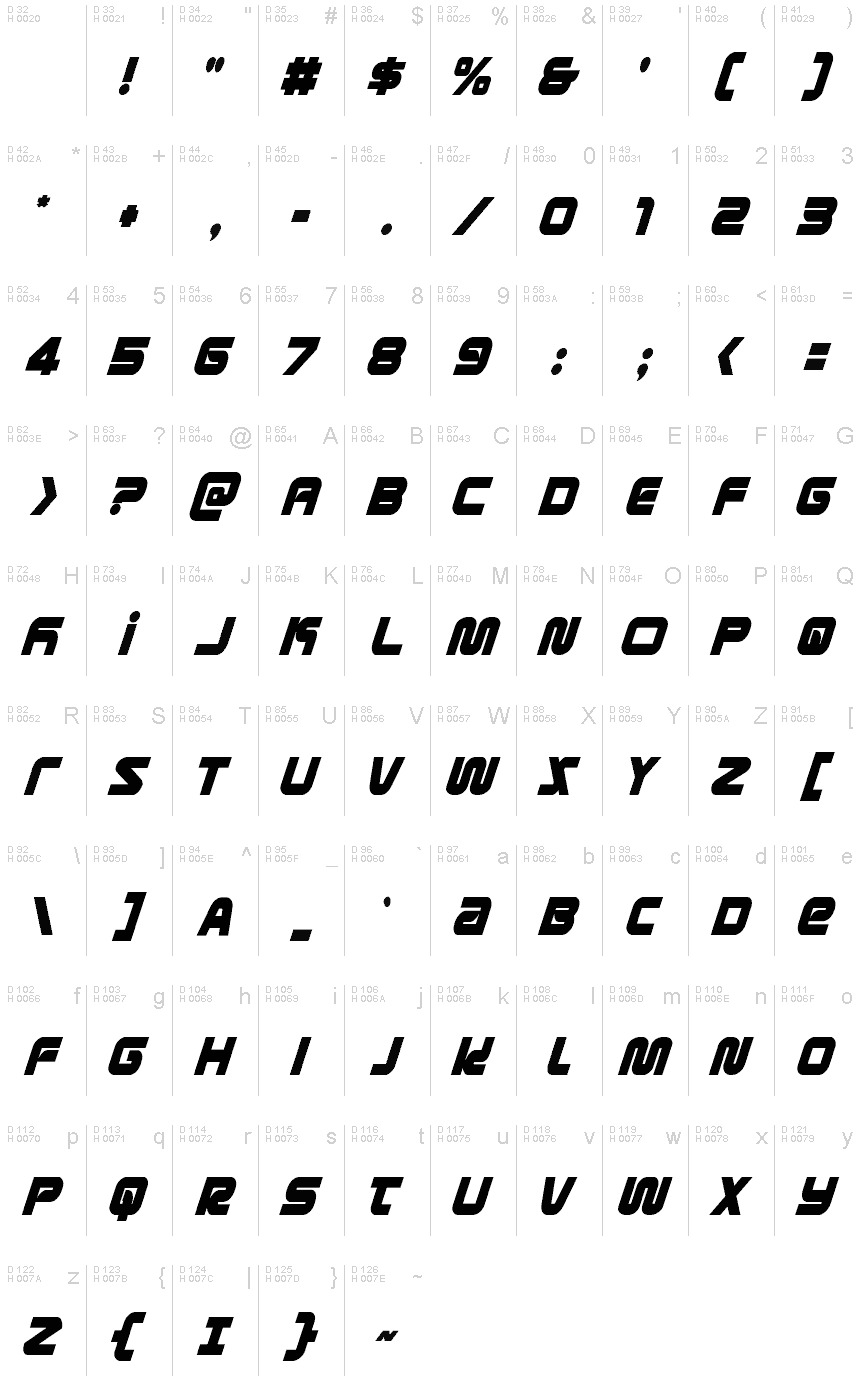
Metronauts Condensed Italic
The Metronauts Condensed Italic font, crafted by Daniel Zadorozny of Iconian Fonts, is a captivating display font that exudes a futuristic allure. This bold and dynamic typeface boasts a sleek, condensed silhouette with sharp, angular strokes, evoking a sense of technological sophistication and cutting-edge design.
The Metronauts Condensed Italic font's distinctive aesthetic is heightened by its striking italic inclination, lending a sense of momentum and dynamism to the letterforms. This font's versatility shines through its ability to seamlessly integrate into a wide range of design applications, from sci-fi-inspired branding to eye-catching digital interfaces.
Metronauts Condensed Italic's bold and futuristic nature makes it an excellent choice for headings, logos, and attention-grabbing displays. Its clean lines and compact form also allow for efficient text layout, making it a compelling option for UI/UX design, signage, and promotional materials that demand a bold, forward-thinking visual identity.